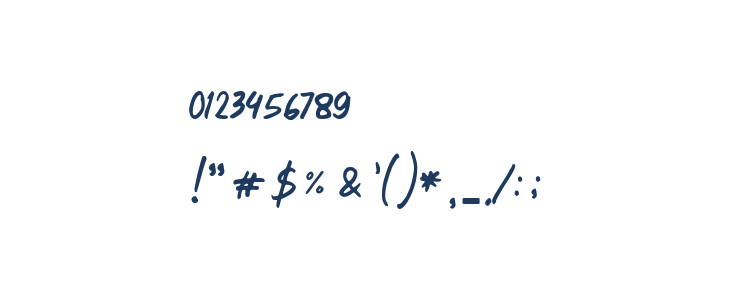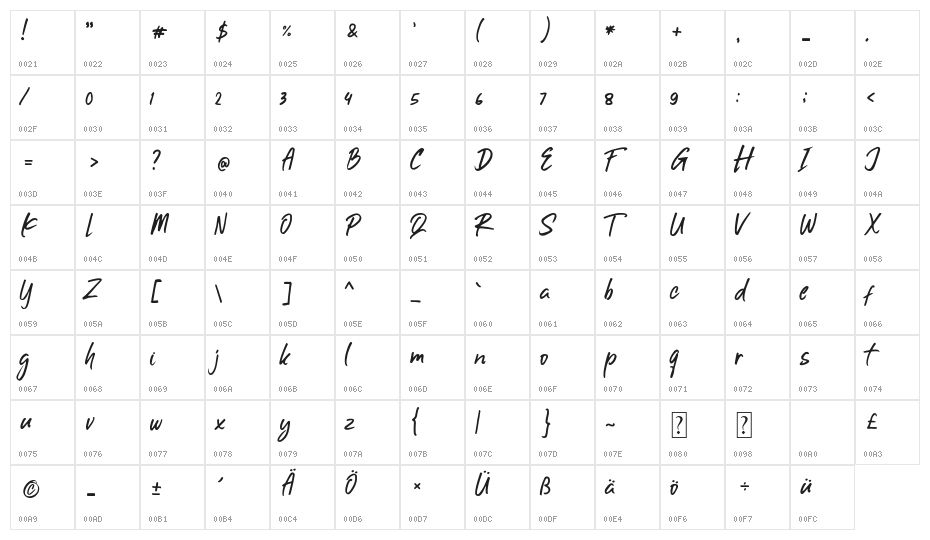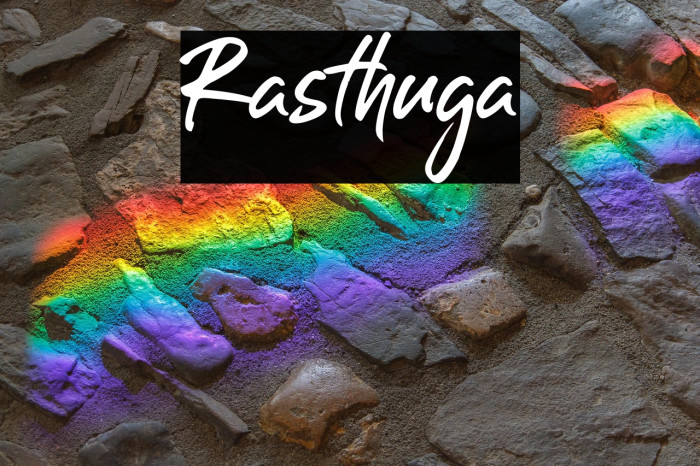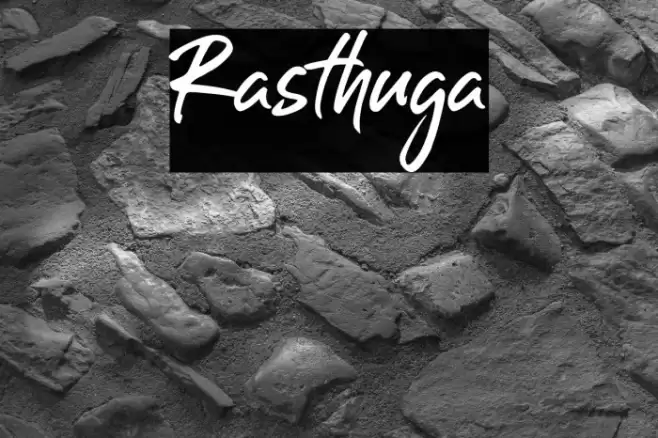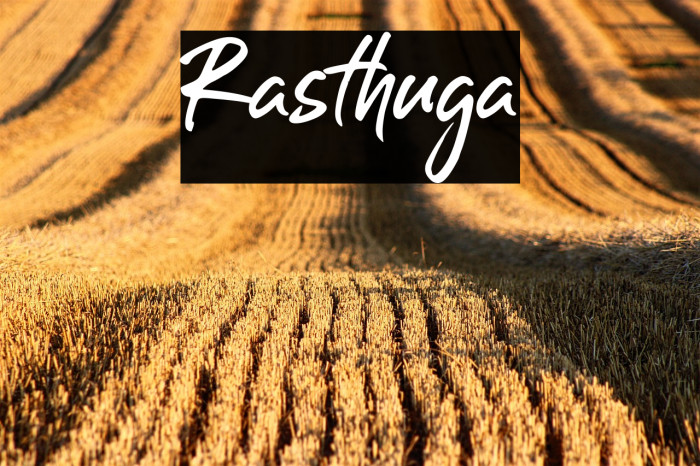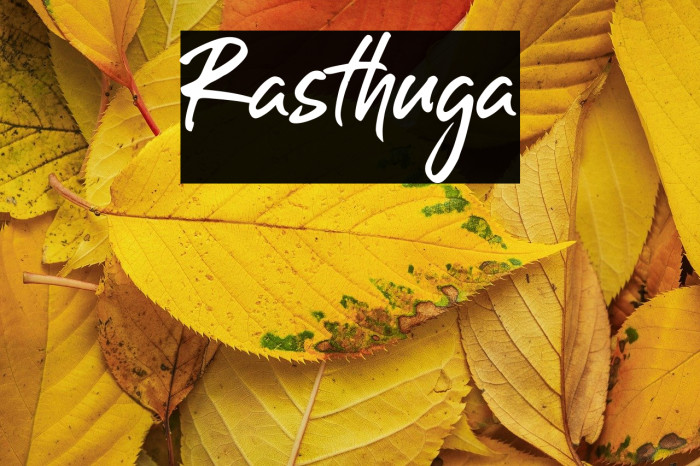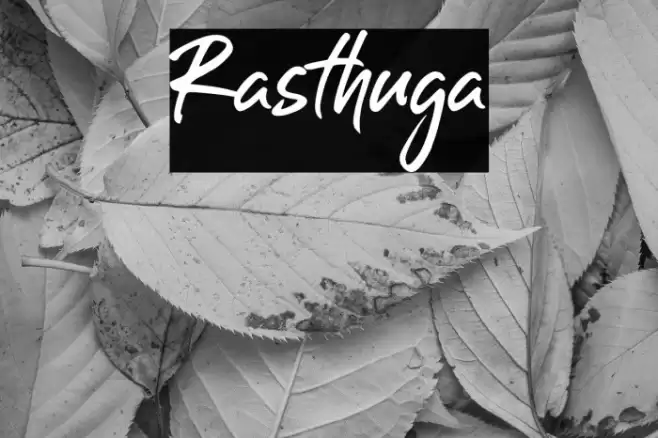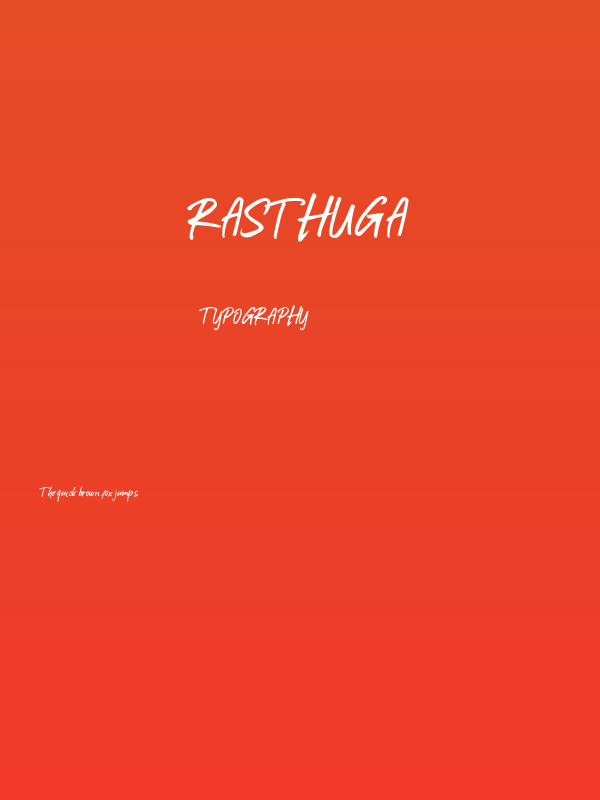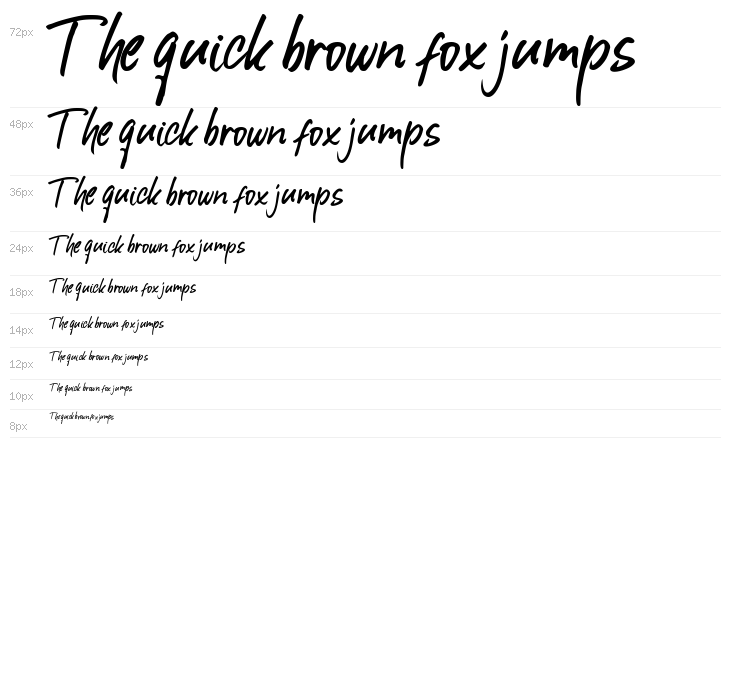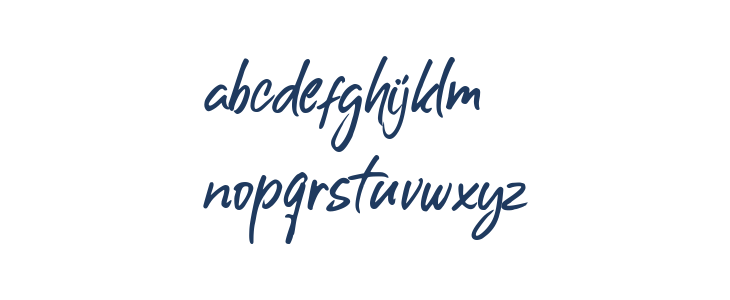
Rasthuga Font
Rasthuga Description
This font features a dynamic and expressive handwritten style, characterized by fluid strokes and a natural flow. The uppercase letters are bold and slightly slanted, giving a sense of movement and energy. The lowercase letters maintain a consistent style, with some characters featuring unique loops and curves that enhance the handwritten feel. The numerals are clear and legible, matching the overall aesthetic of the font. Special characters are seamlessly integrated, maintaining the font's cohesive look. This font is ideal for projects that require a personal touch or a creative flair.